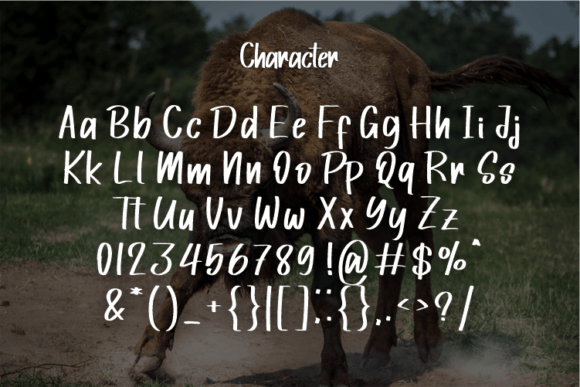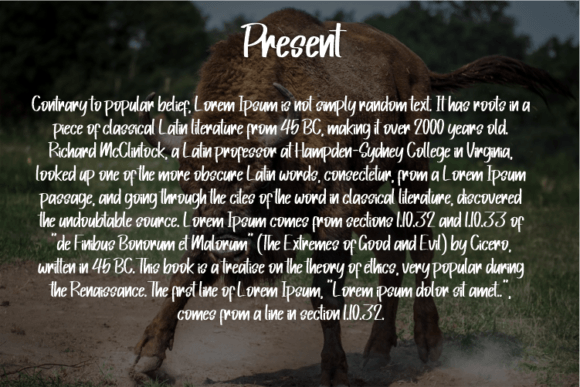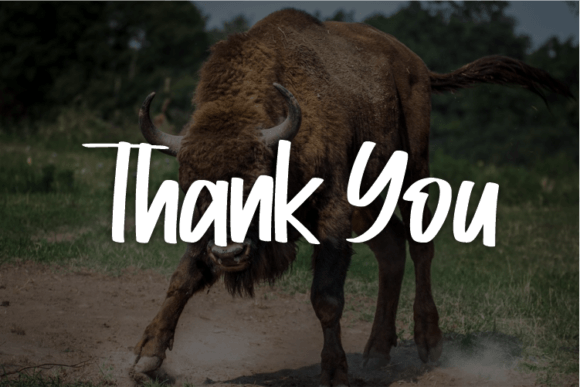
Bullshit Font: Elevate Your Design with Elegance and Luxury
In the world of typography, fonts play a crucial role in conveying the tone and personality of a brand, product, or creative project. One typeface that has gained significant attention in recent times is the Bullshit Font, a script typeface that boasts a simple yet modern look. This elegant font is perfect for designers and crafters looking to add a touch of sophistication and luxury to their work.
What is Bullshit Font?
Bullshit Font is a script typeface designed with a simple and modern aesthetic in mind. Its clean lines, subtle curves, and balanced proportions make it an ideal choice for a wide range of design applications. Whether you’re working on a logo, book or movie title, fashion brand, magazine, clothing, or quotes, this font is sure to impress.
Key Features of Bullshit Font
- Simple yet Elegant: Bullshit Font features a minimalist design that exudes elegance and sophistication.
- Modern Look: Its modern aesthetic makes it perfect for contemporary designs that require a fresh and stylish feel.
- Versatile: This font is suitable for various design projects, from logos and titles to magazines and quotes.
- Luxurious Feel: The font’s refined lines and curves give it a luxurious feel that’s perfect for high-end brands and designs.
Use Cases for Bullshit Font
Bullshit Font is an incredibly versatile typeface that can be used in a variety of design projects. Here are some examples:
- Elegant Logos: Create a sophisticated logo for a luxury brand, fashion label, or high-end product with Bullshit Font.
- Book and Movie Titles: Add a touch of elegance to book and movie titles with this beautiful script typeface.
- Fashion Brands: Use Bullshit Font to create stunning fashion brand logos, advertisements, or marketing materials.
- Magazines and Publications: Elevate your magazine or publication’s typography with this refined and luxurious font.
- Clothing and Apparel: Design stylish and eye-catching clothing and apparel with Bullshit Font.
- Quotes and Typography: Use this font to create inspiring and elegant quotes, typographic posters, or social media graphics.
Why Choose Bullshit Font?
With so many fonts available, why choose Bullshit Font? Here are a few compelling reasons:
- Unique and Distinctive: Bullshit Font offers a unique and distinctive look that sets it apart from other script typefaces.
- Elegant and Luxurious: Its elegant and luxurious feel makes it perfect for high-end designs and brands.
- Versatile and Adaptable: This font is incredibly versatile and can be used in a wide range of design projects.
- Easy to Read: Despite its elegant design, Bullshit Font remains easy to read, making it perfect for body text and captions.
Tips for Using Bullshit Font Effectively
To get the most out of Bullshit Font, here are some tips to keep in mind:
- Pair with Contrasting Fonts: Pair Bullshit Font with contrasting fonts to create visual interest and hierarchy.
- Use for Headings and Titles: Use Bullshit Font for headings and titles to add a touch of elegance and sophistication.
- Pay Attention to Kerning: Pay attention to kerning and spacing to ensure that your text looks polished and refined.
Bullshit Font is a stunning script typeface that offers a simple yet modern look. Its elegance, luxury, and versatility make it perfect for a wide range of design projects, from logos and titles to magazines and quotes. With its unique and distinctive design, Bullshit Font is sure to elevate your designs and add a touch of sophistication. Whether you’re a designer, crafter, or simply a typography enthusiast, Bullshit Font is definitely worth checking out.